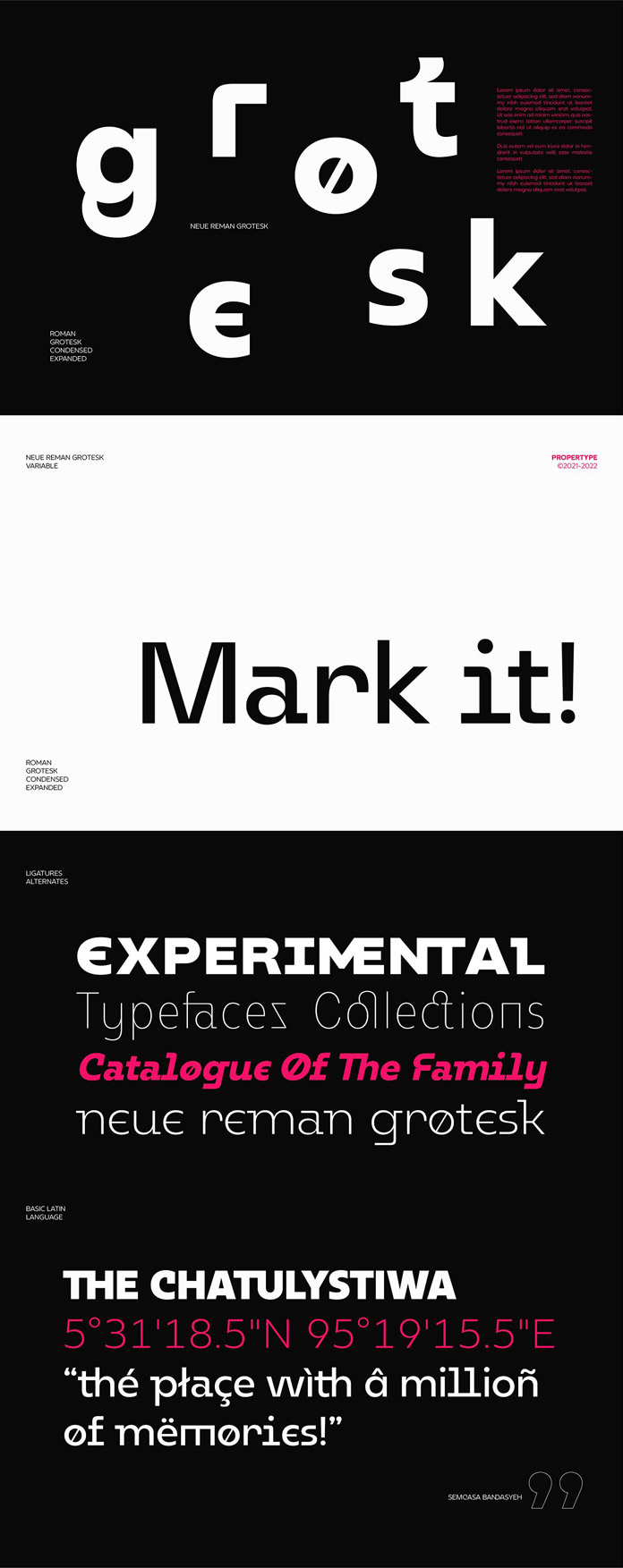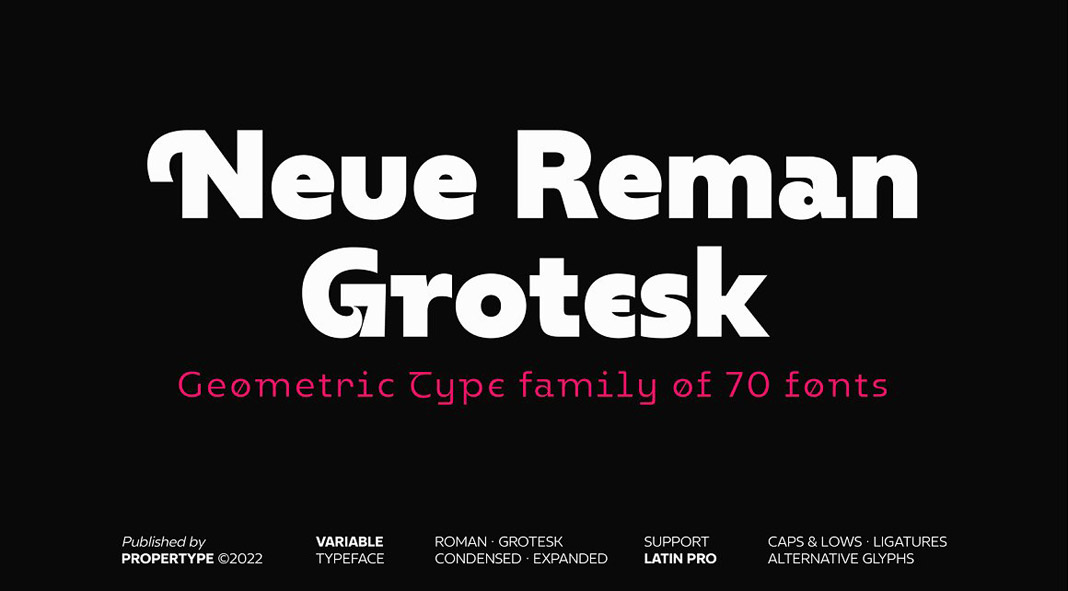
Propertype’s super-stylish Neue Reman Grotesk font family comes with 70 fonts in total plus one variable font.
The Neue Reman Grotesk font family, designed and published by Propertype, comes equipped with 750 glyphs supporting over 192 languages. In addition to an impressive variety of OpenType features like stylistic alternates, caps swashes letters, standard ligatures, discretionary ligatures, tabular figures, proportional figures, superscripts, and subscripts—this font also supports scientific inferiors, fractions, ordinals, arrows, and plenty of other useful symbols. Read more below or click on one of the following links to learn more about the Neue Reman Grotesk font family.
The Neue Reman Grotesk typeface is extremely versatile and can be used for a variety of purposes, such as branding, logos, titles, headlines, body text, and more. The font family comes in seven weights, with matching italics and a variable font file included. This gives you maximum typographic freedom.
Propertype’s Neue Reman Grotesk font family is an excellent choice for versatile, high-quality typography. With multilanguage support and a wealth of OpenType features, this typeface is perfect for any design project. With its numerous weights, matching italics, and variable font, it has never been easier to find the perfect fit for your needs. This family is a true workhorse for a wide range of applications. So it’s definitely worth a try!